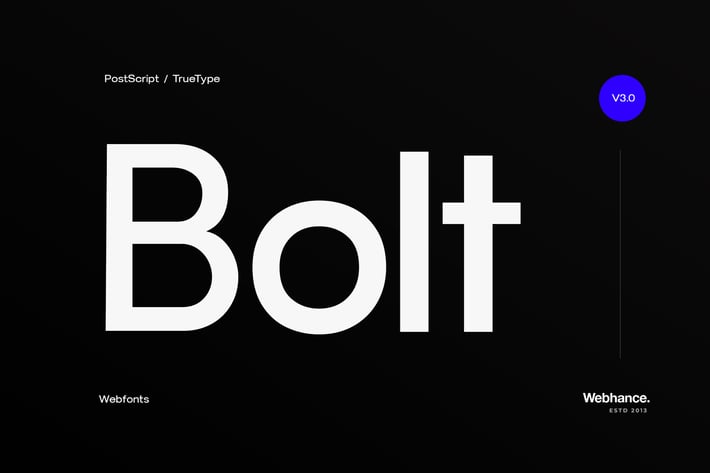
Bolt Sans - Modern Typeface + WebFont
Bolt Sans Typeface V3.0
Introducing "Bolt," now revamped with extended multilingual glyphs! Perfectly crafted for a myriad of design projects, this versatile font is tailor-made for minimalistic designs, captivating Instagram posters, eye-catching YouTube thumbnails, vibrant posters, and various other creative endeavors. Its elegance knows no bounds, making it a splendid choice for any modern design aesthetic. Unlock a world of possibilities with Bolt - the epitome of beauty and functionality combined.
Multilingual Font
Uppercase letters
Lowercase letters
200+ Glyphs
Punctuations
Font Designed and Crafted by Adam Johns & Errick (Old Font Factory 2009 ), Distributed by Webhance Studio.